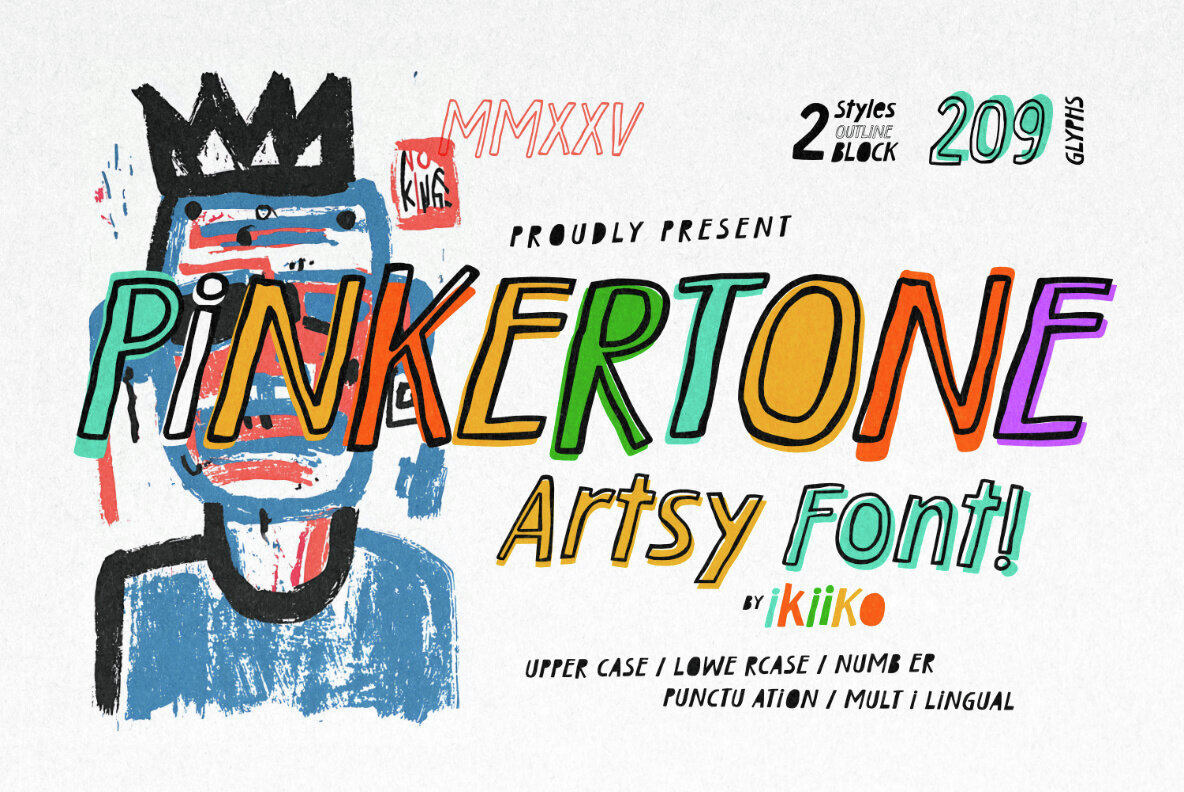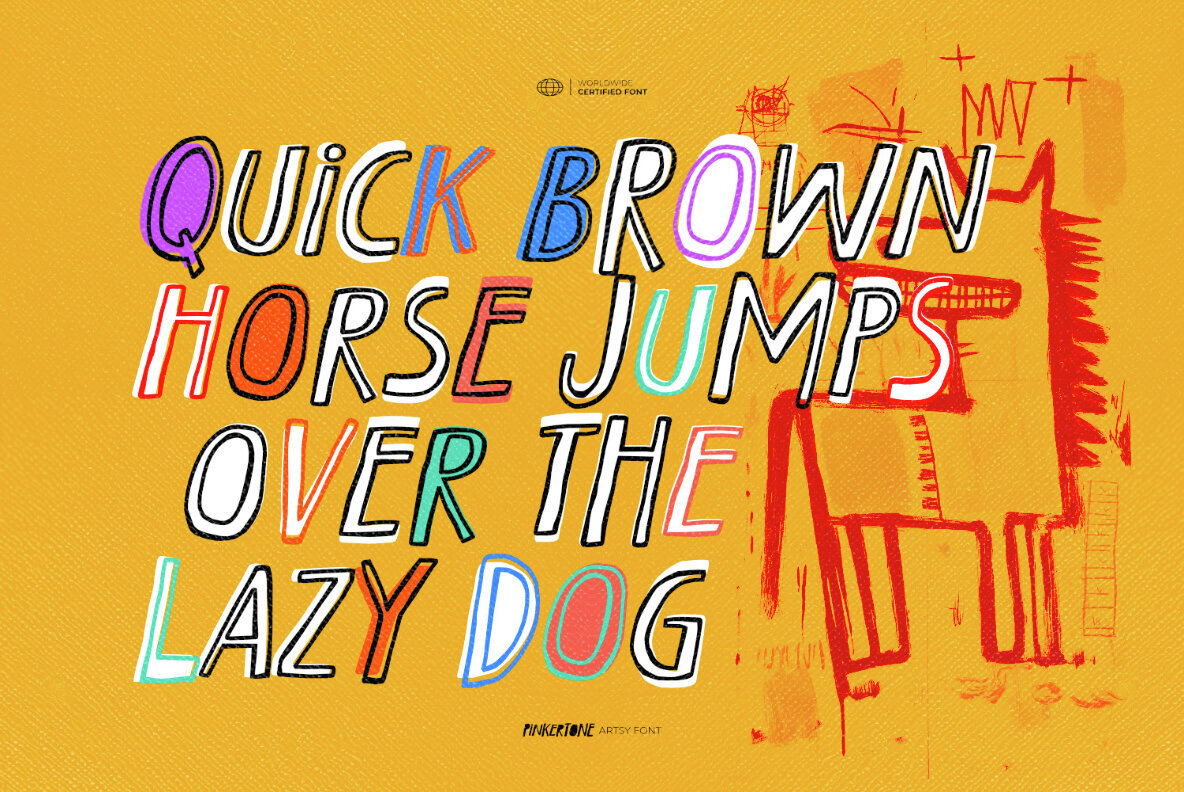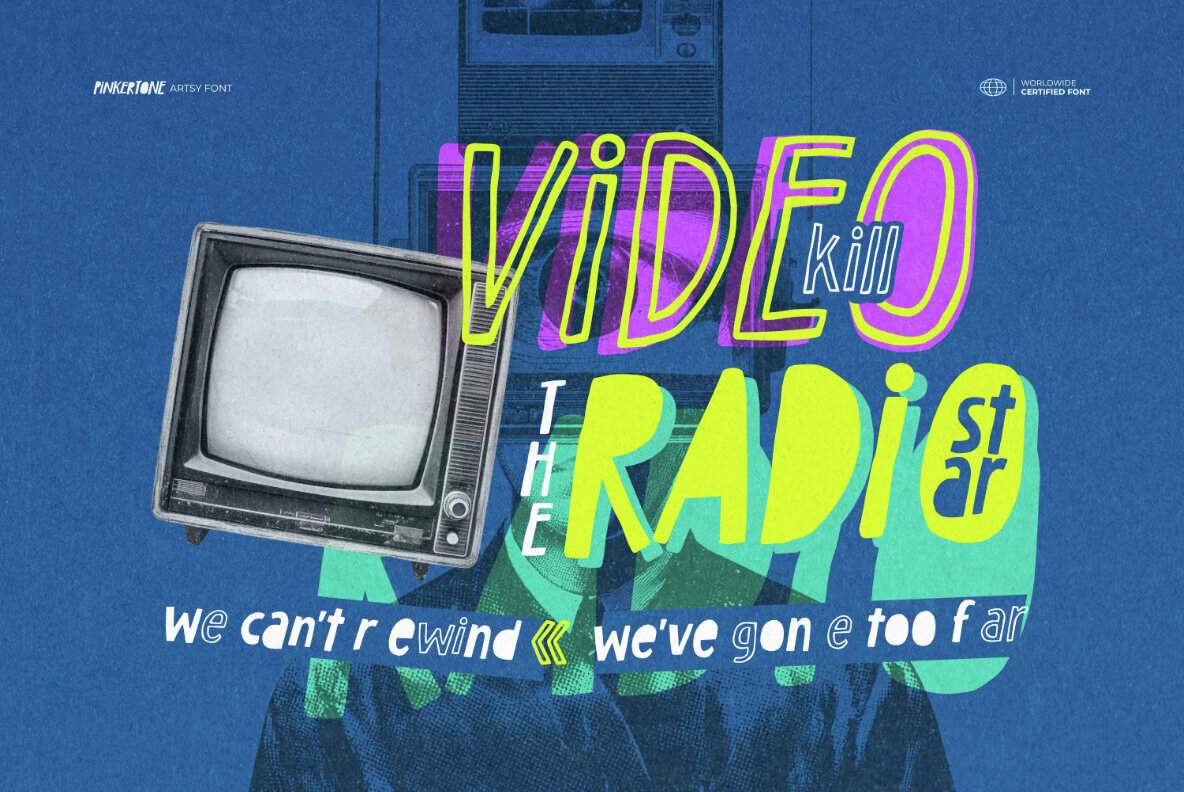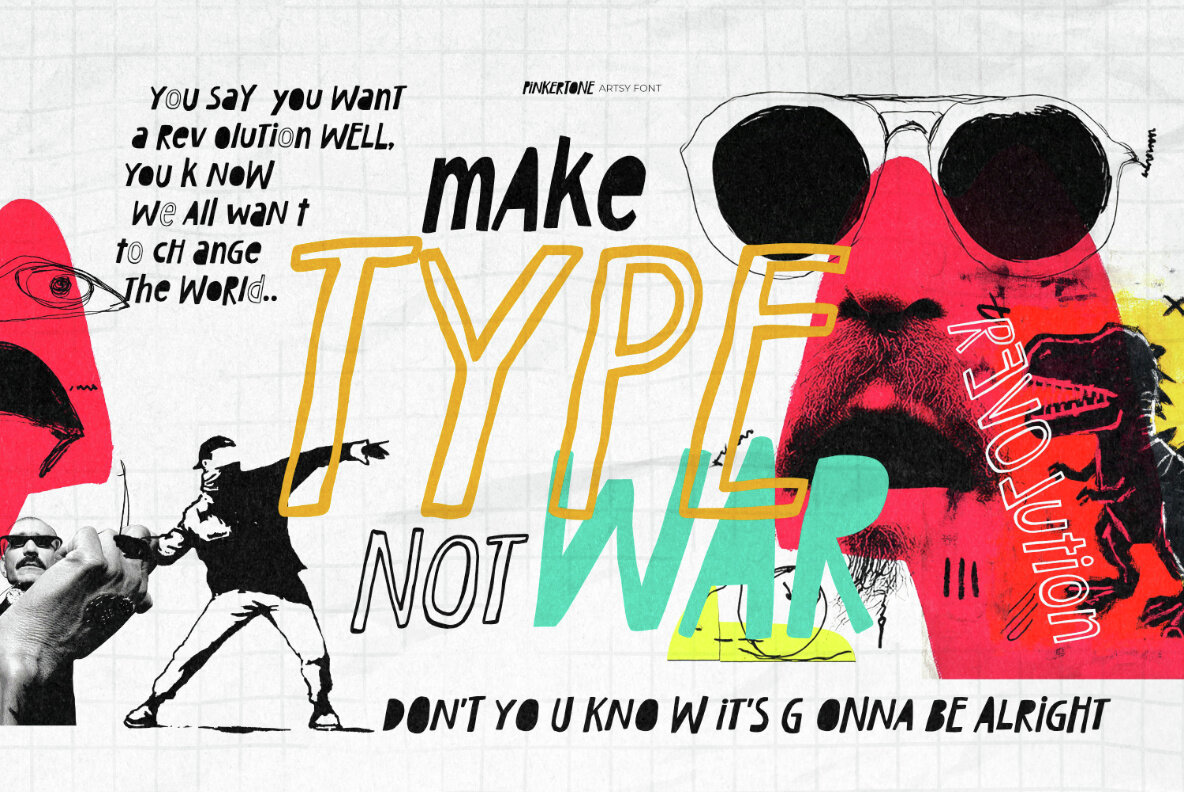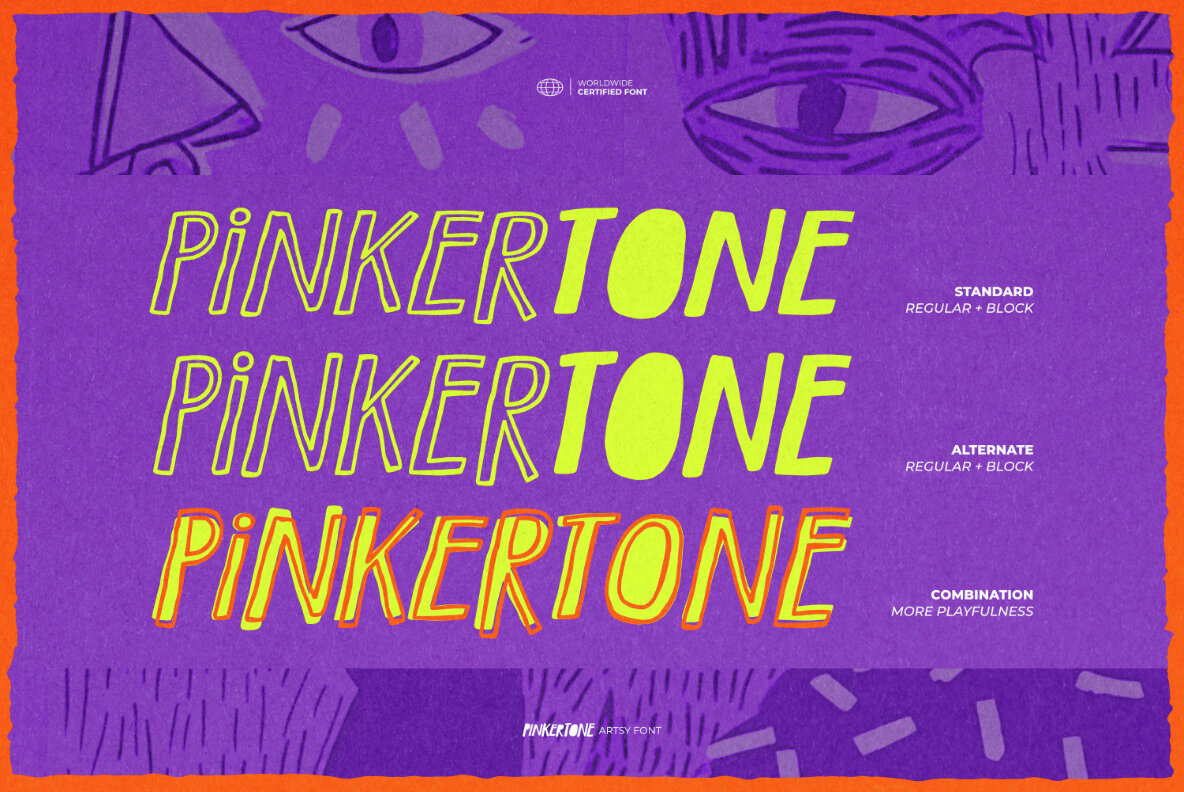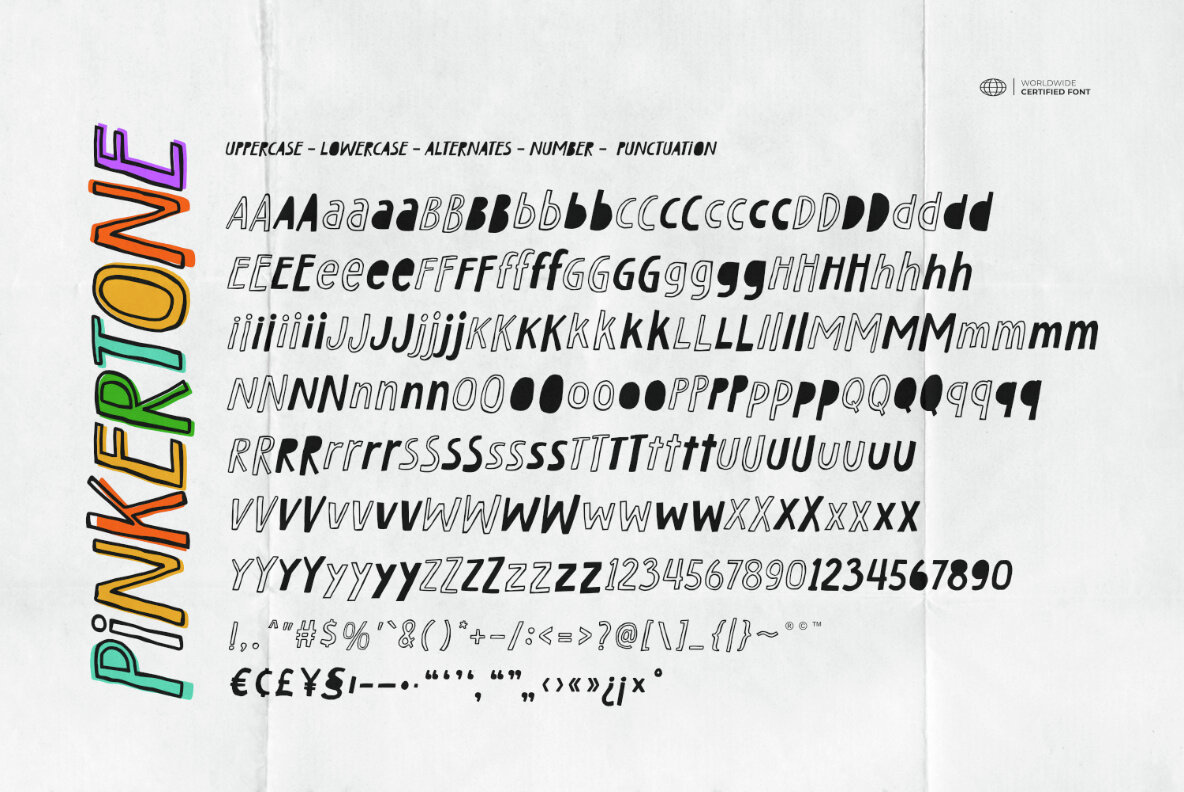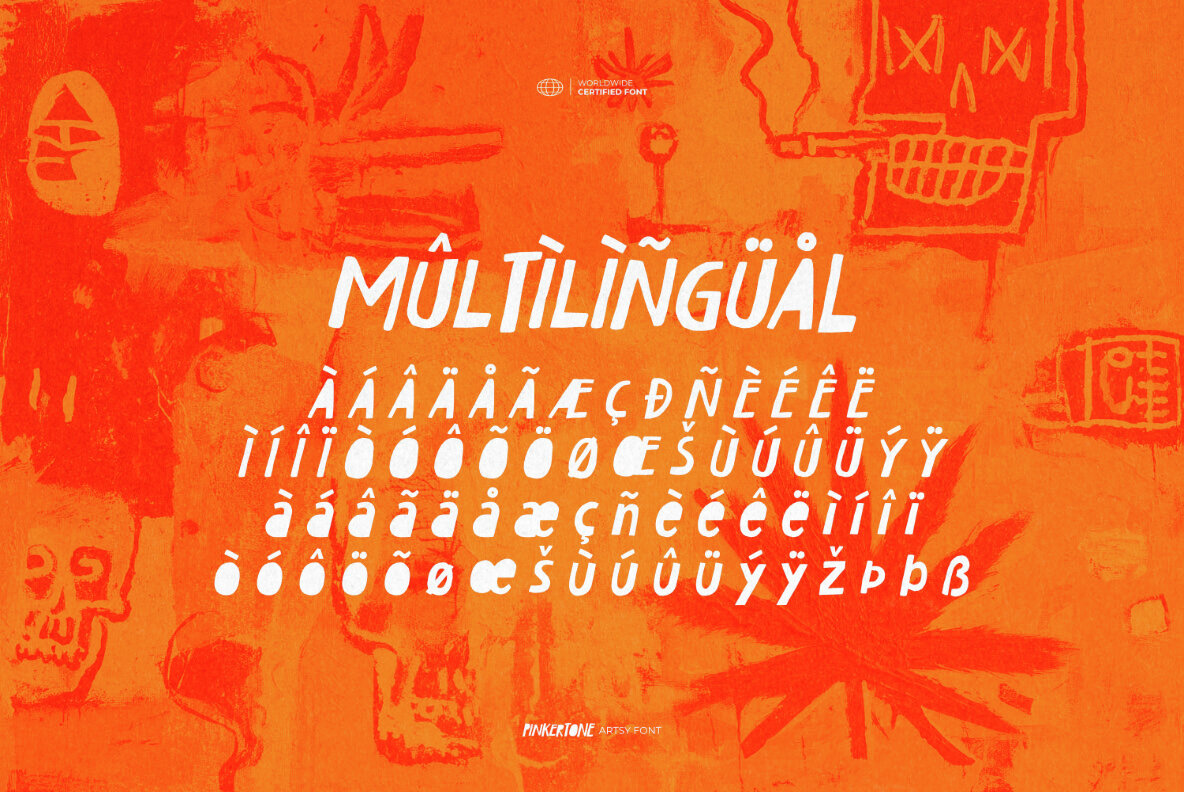
Pinkertone Font
Unleash your creativity with Pinkertone, an expressive typeface inspired by the raw energy of Jean-Michel Basquiat. Its hand-drawn strokes create an organic flow that's rough and youthful, ideal for designs that stand out. Pinkertone is available in two distinct styles: Regular (Outline Style) and Block. These styles can be used independently or combined to achieve a dynamic and unique typographic expression. Their versatility allows for experimentation and layering, offering spontaneous design possibilities rich with character. Each letter in Pinkertone exudes the edgy vibe of street art, with its imperfect lines and spontaneous marks. This fearless spirit makes it perfect for projects that demand bold visual statements such as posters, art exhibitions, urban fashion branding, and more.Pinkertone: A Bold Hand-Drawn Typeface